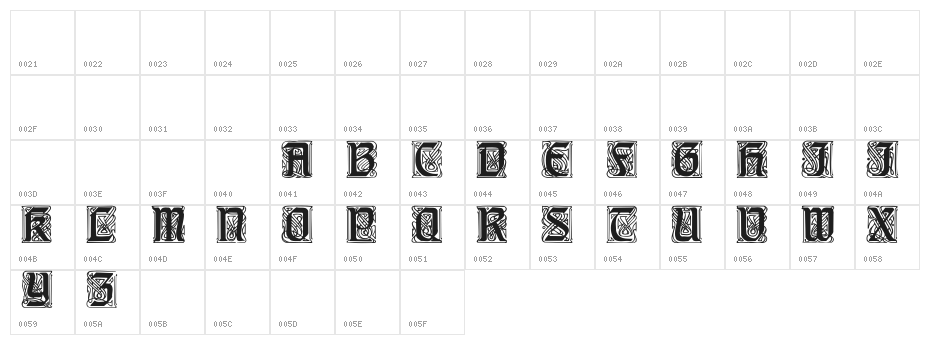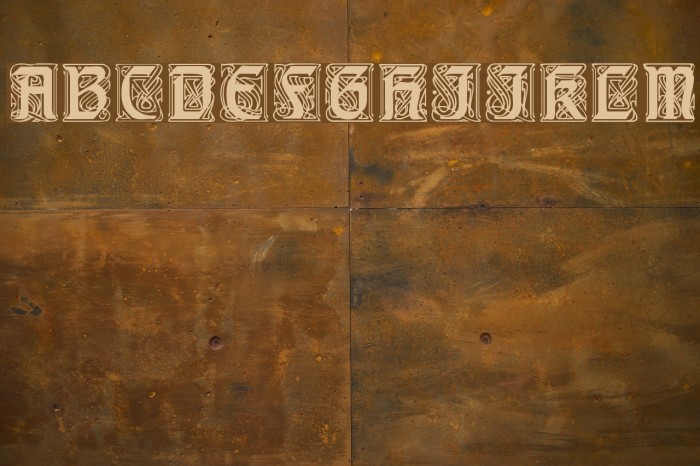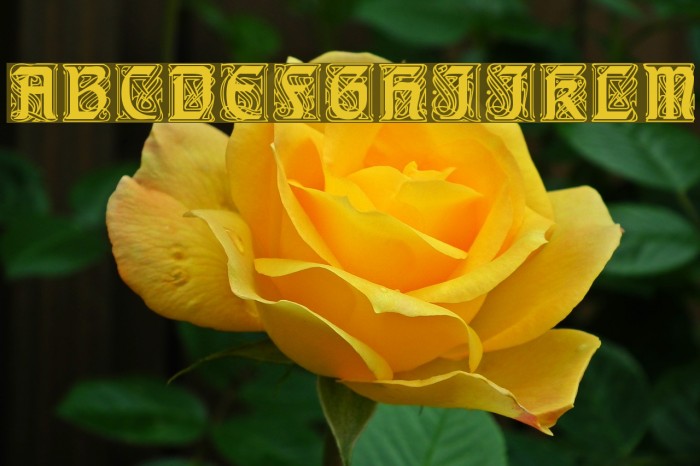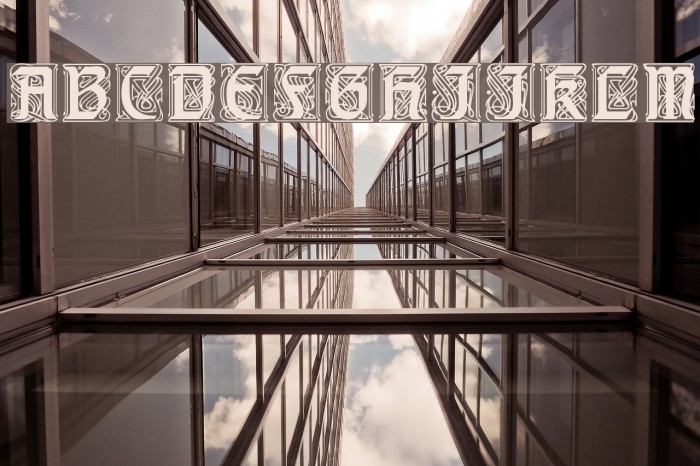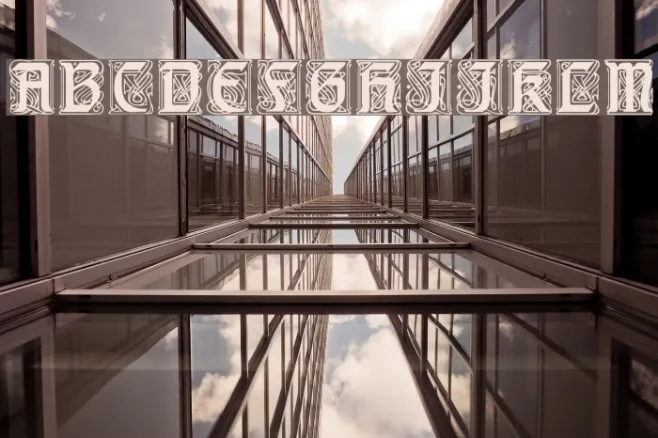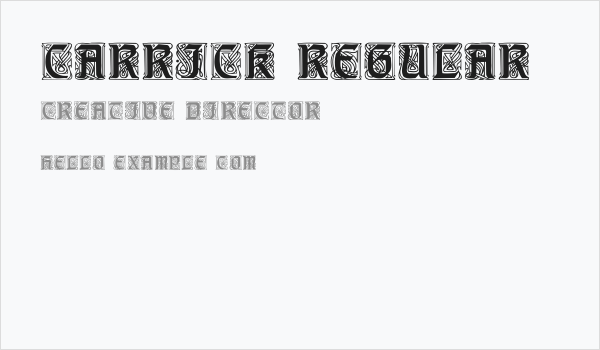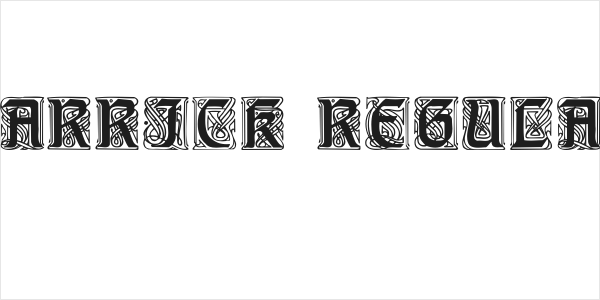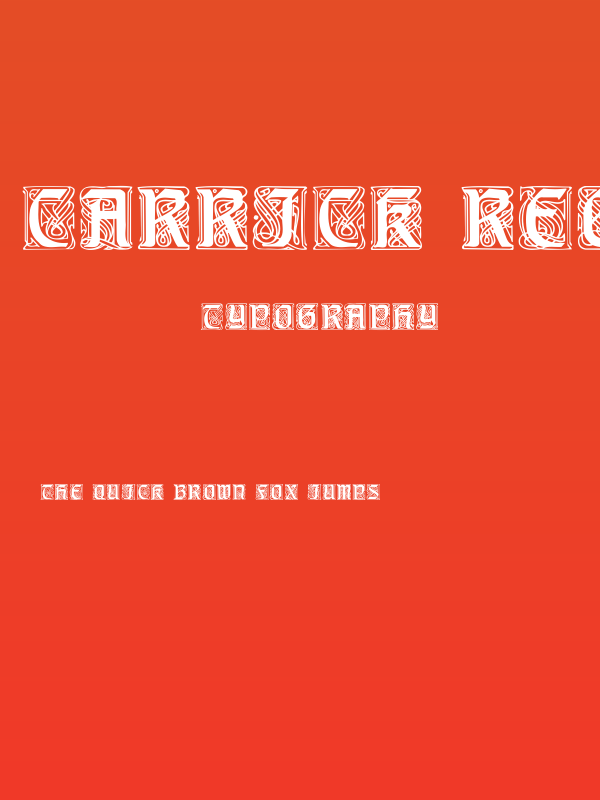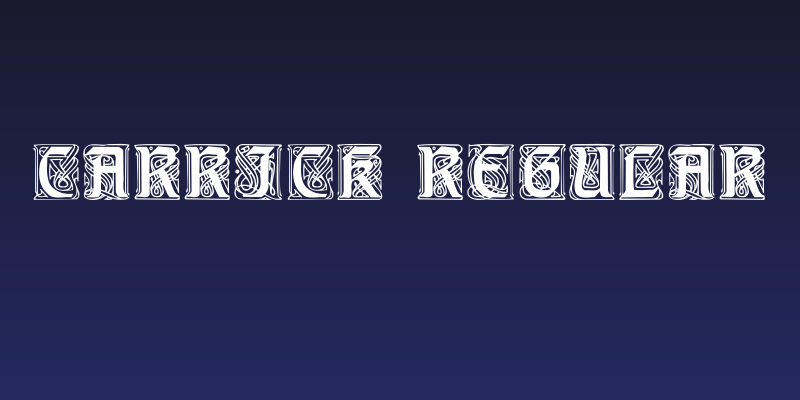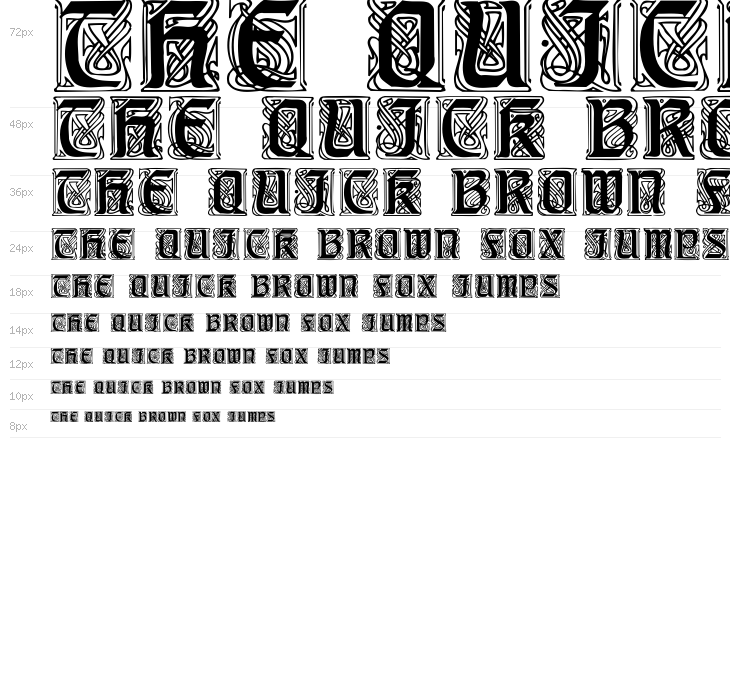
Carrick Regular Font
Carrick Regular Description
This font features an intricate and decorative style, characterized by its bold and ornate design. Each letter is enclosed within a square frame, filled with elaborate patterns and flourishes that give it a unique and artistic appearance. The font's high contrast between thick and thin strokes adds to its dramatic and eye-catching look. It is designed to stand out and make a statement, making it ideal for projects that require a touch of elegance and sophistication. The overall style is reminiscent of vintage or Gothic influences, with a modern twist that makes it suitable for contemporary use.